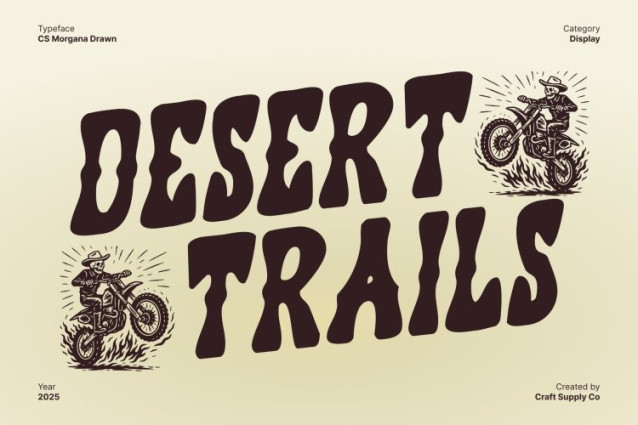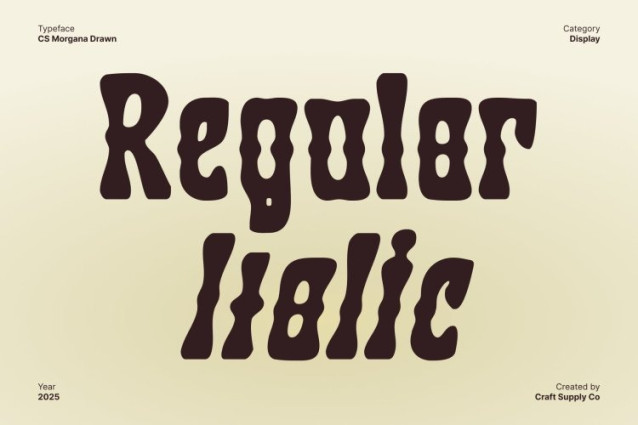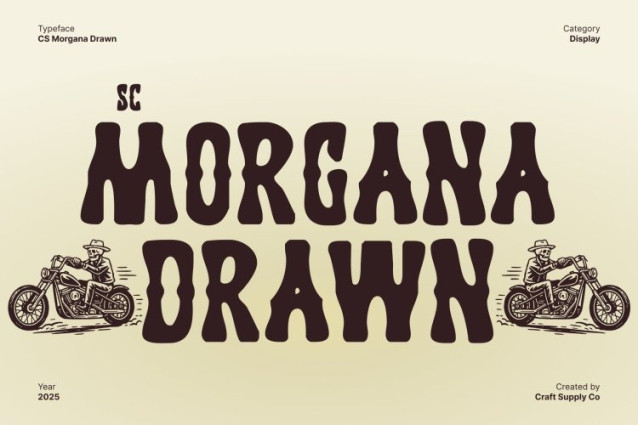
CS Morgana Drawn Font
CS Morgana Drawn Font This is a Tuscan-inspired display font that blends classic flared details with a contemporary, relaxed style. Its refined letterforms retain the elegance of traditional Tuscan designs while feeling approachable and fresh. Each character carries a subtle charm, making the font perfect for projects that balance historic appeal with modern aesthetics.
Hand-Drawn Texture for Warmth and Personality
The drawn texture gives this font a soft, handcrafted feel. Slight irregularities in each stroke create a natural, organic look, adding depth and personality to the font. This artistic touch transforms classic Tuscan forms into a font that feels expressive, friendly, and visually engaging.
Perfect for Posters, Historic Designs, and Branding
This versatile font excels in a variety of creative applications. Use this font for posters, editorial layouts, historical-themed projects, packaging, or branding that requires elegance with a soft, artisanal touch. Its handcrafted aesthetic makes every design stand out while retaining a timeless quality.
A Versatile Typeface Blending Classic and Contemporary Style
This font harmonizes the sophistication of Tuscan typography with the charm of hand-drawn artistry. It is ideal for designers seeking a font that conveys both history and creativity, combining refined elegance with approachable, soft expression. This typeface adds warmth, style, and a memorable personality to any project.